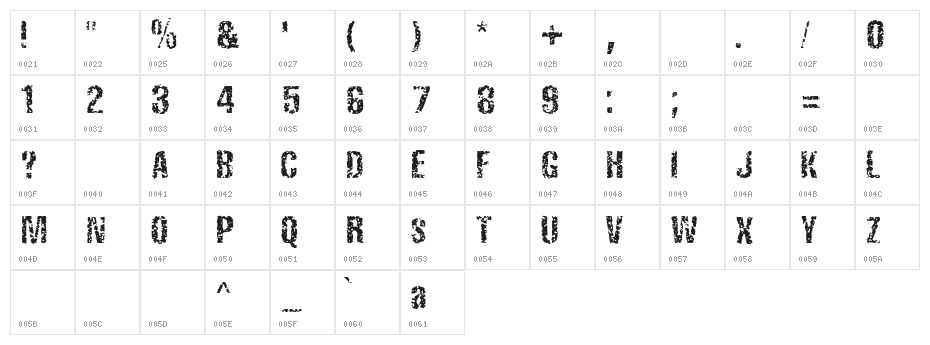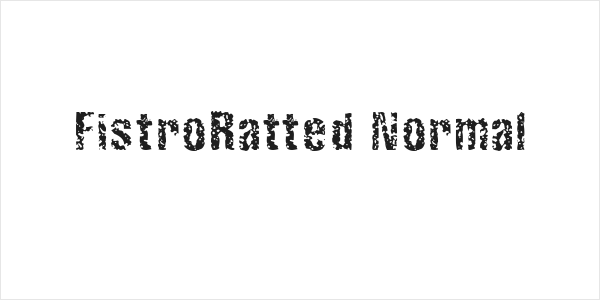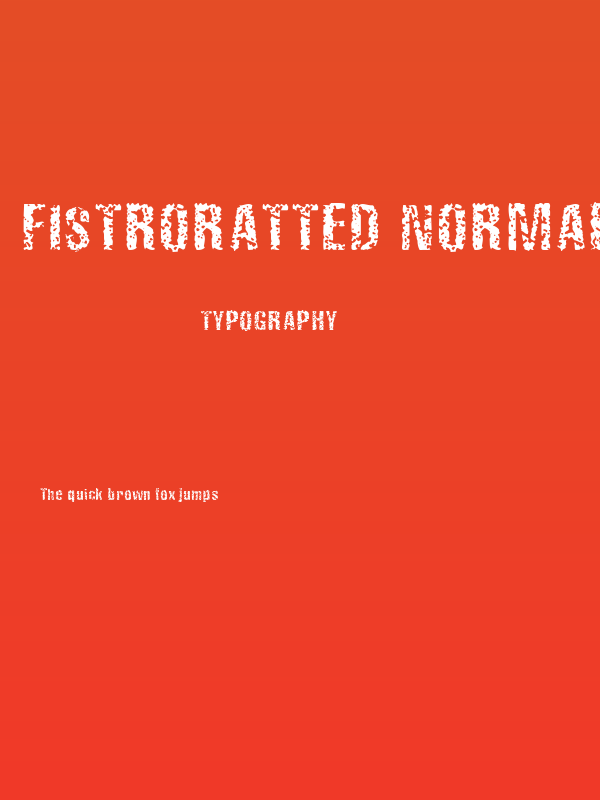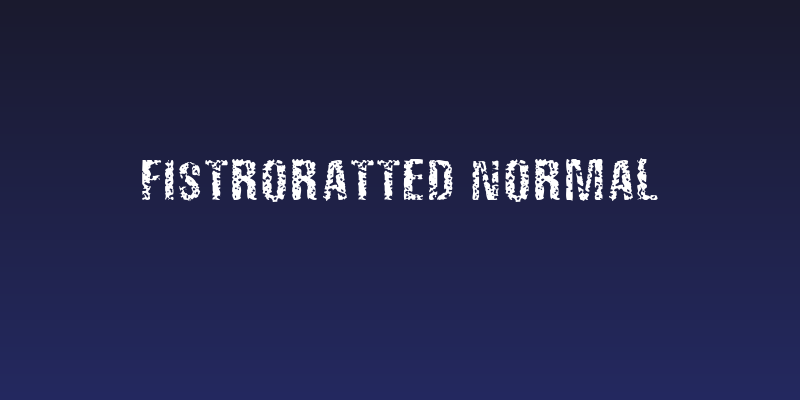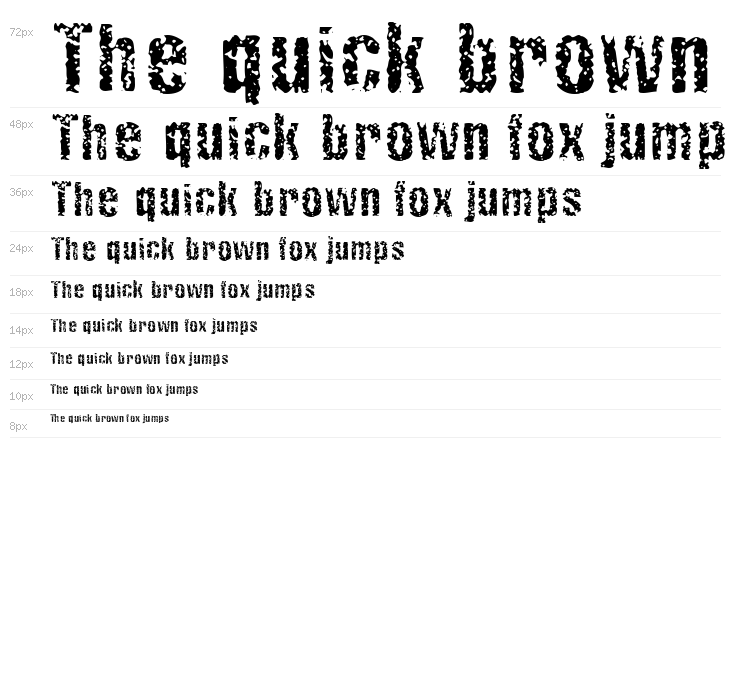
FistroRatted Normal Font
FistroRatted Normal Description
This font features a distressed, grunge style with a textured appearance that gives it a worn and rugged look. The characters are bold and heavily stylized, with irregular edges and a rough, eroded surface that suggests a vintage or industrial aesthetic. The uppercase and lowercase letters maintain a consistent design, while the numbers and special characters follow the same distressed theme. This font is ideal for projects that require a bold statement or an edgy, artistic touch.
| Overall Style | Vintage, Grunge |
| Proposed Projects | Ideal for posters, album covers, branding for edgy or alternative products, and any design needing a vintage or industrial feel. |